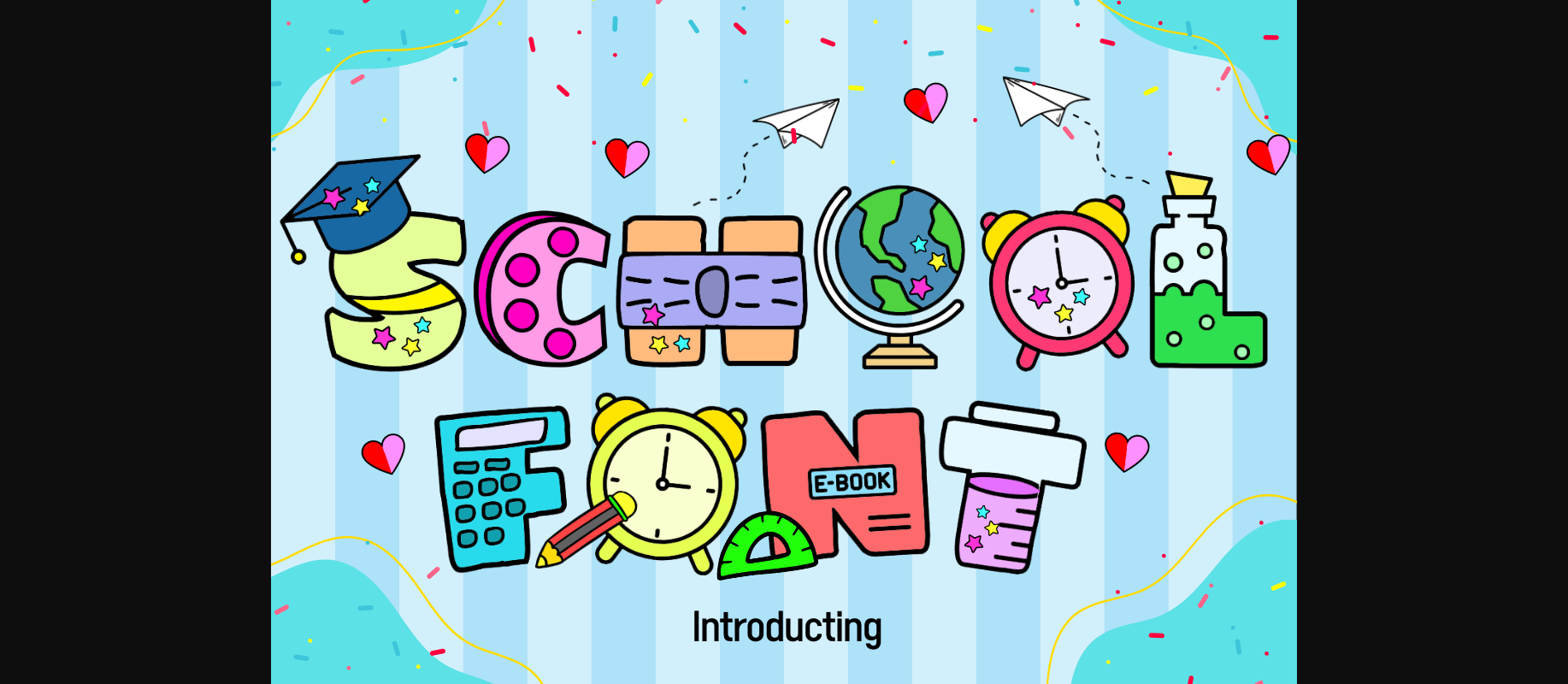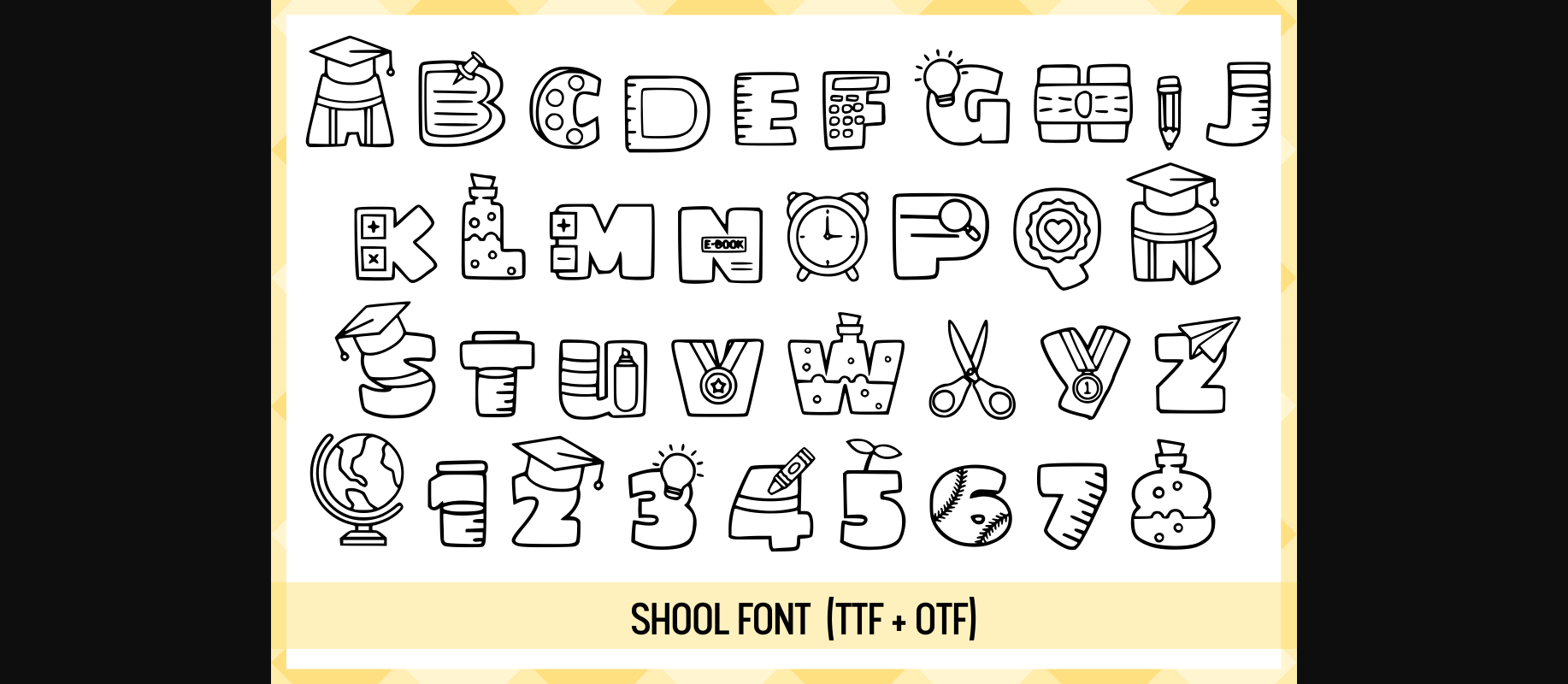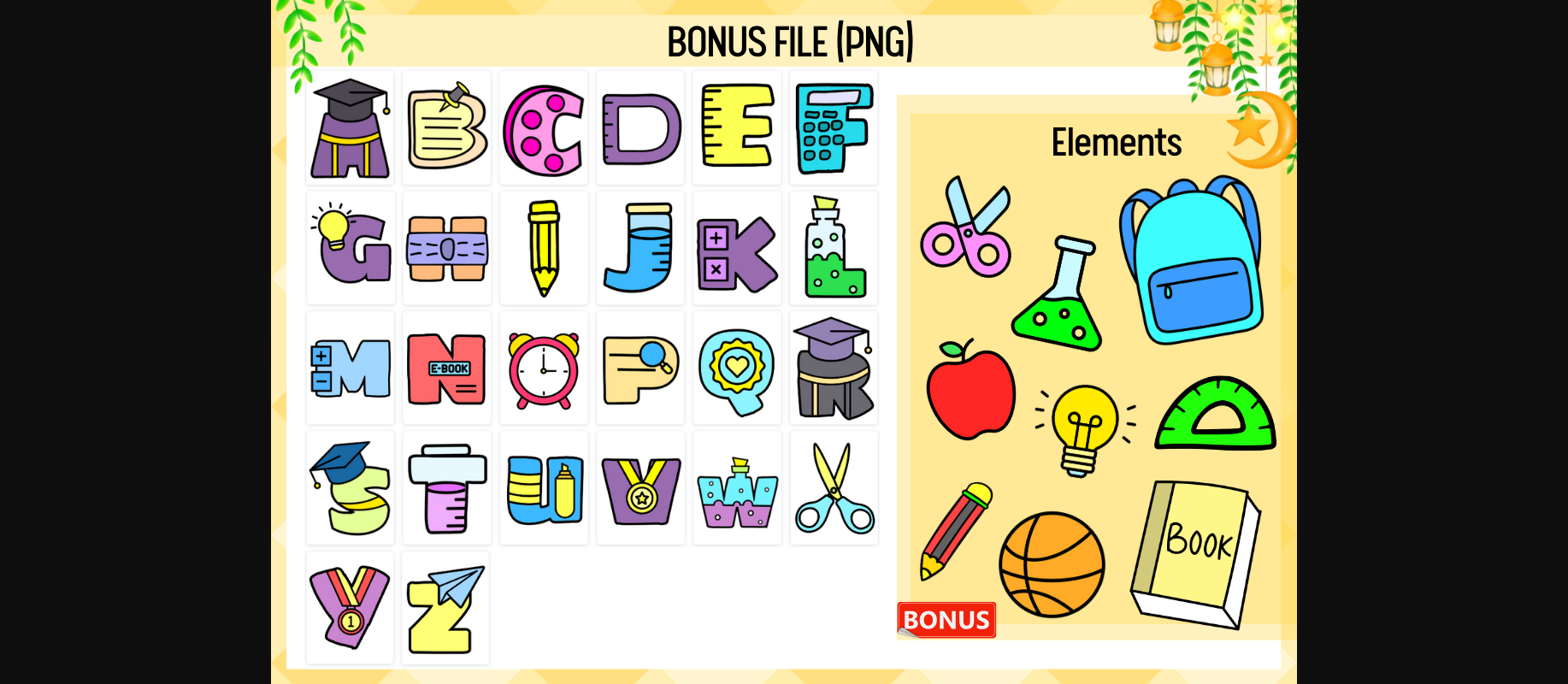
About School Font
School is a lively and playful decorative font that brings a youthful charm to any design. With its whimsical letterforms and dynamic strokes, it captures the essence of childhood and learning. Perfect for educational materials, posters, and projects where a fun and cheerful vibe is desired.